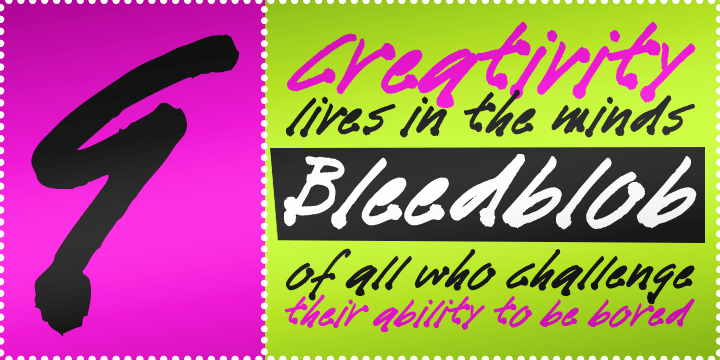
Bleedblob BTN
About Bleedblob BTN
Bleedblob comes from the hand of a seasoned Creative Director who uses this style during concept meetings to capture specific pillars of client direction.